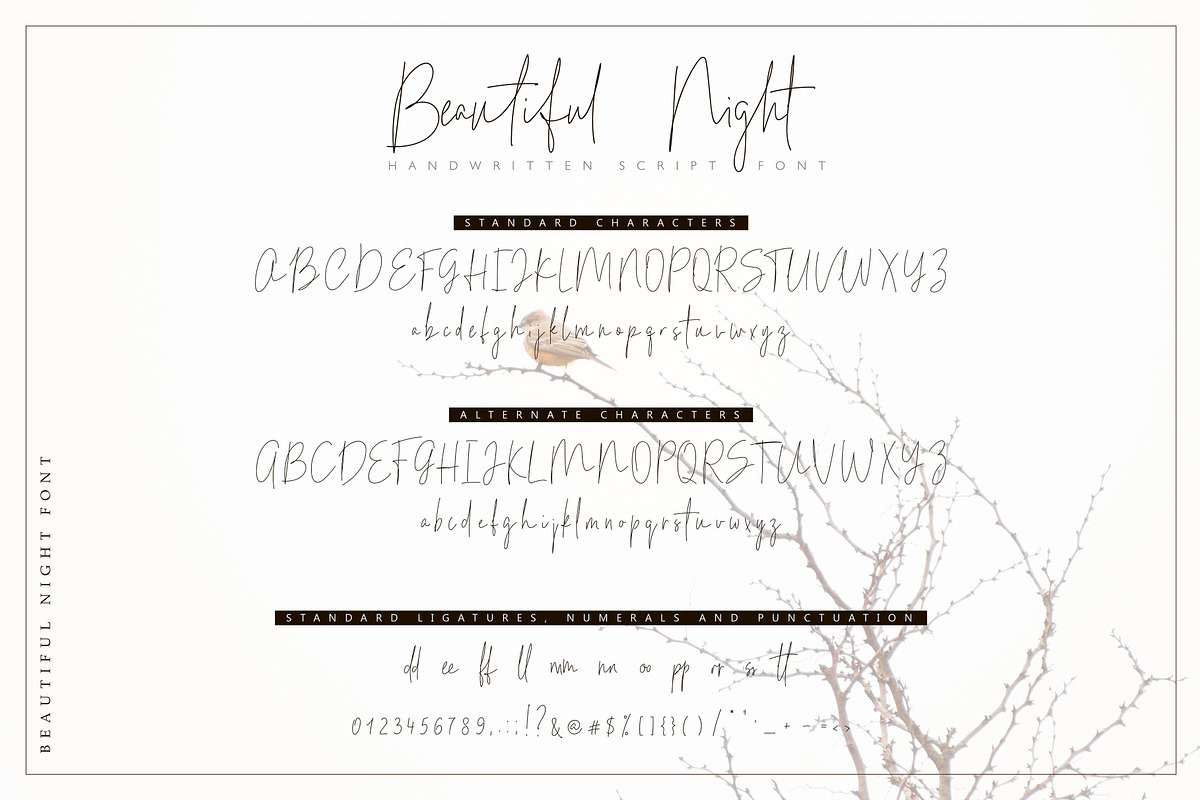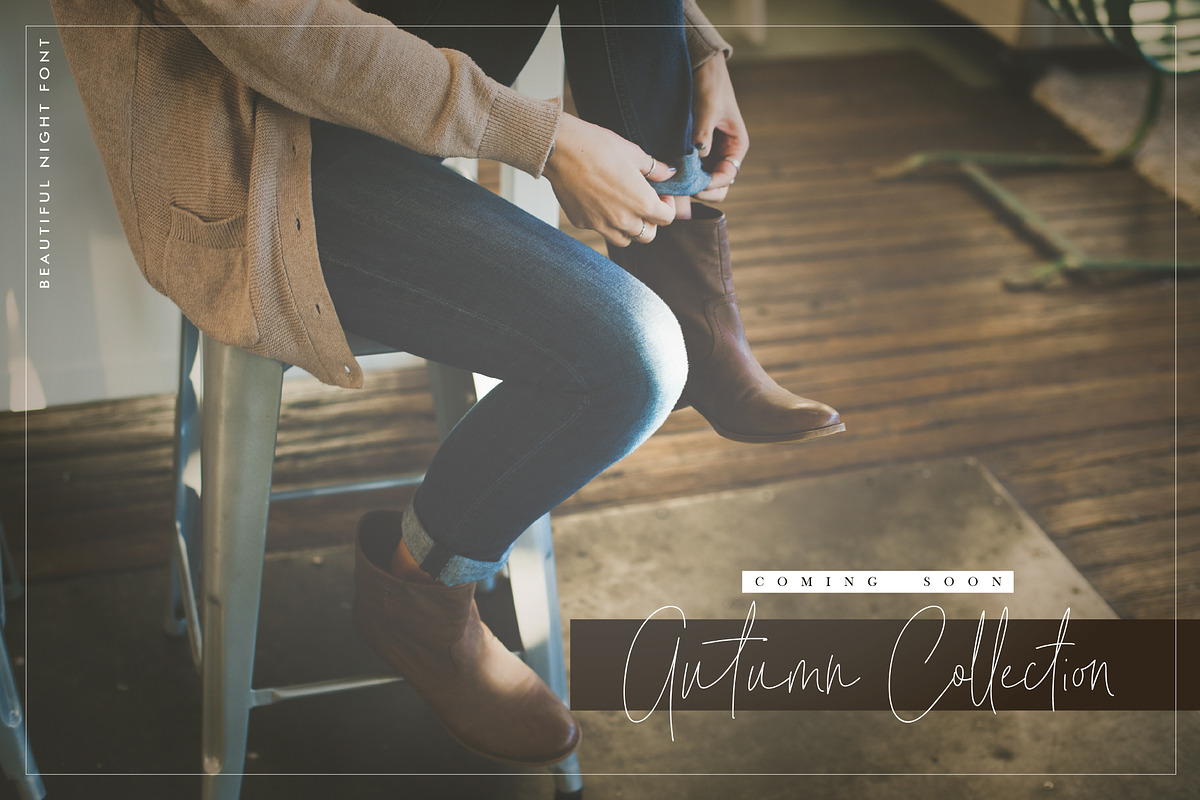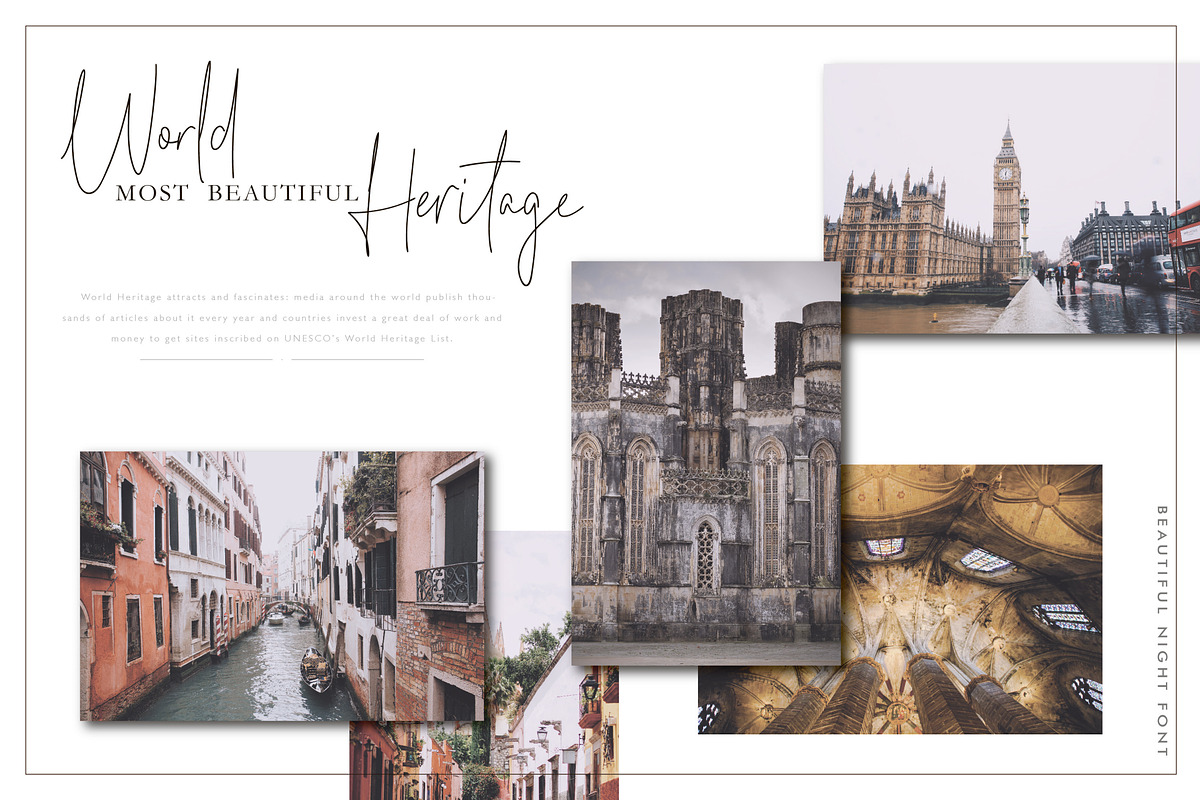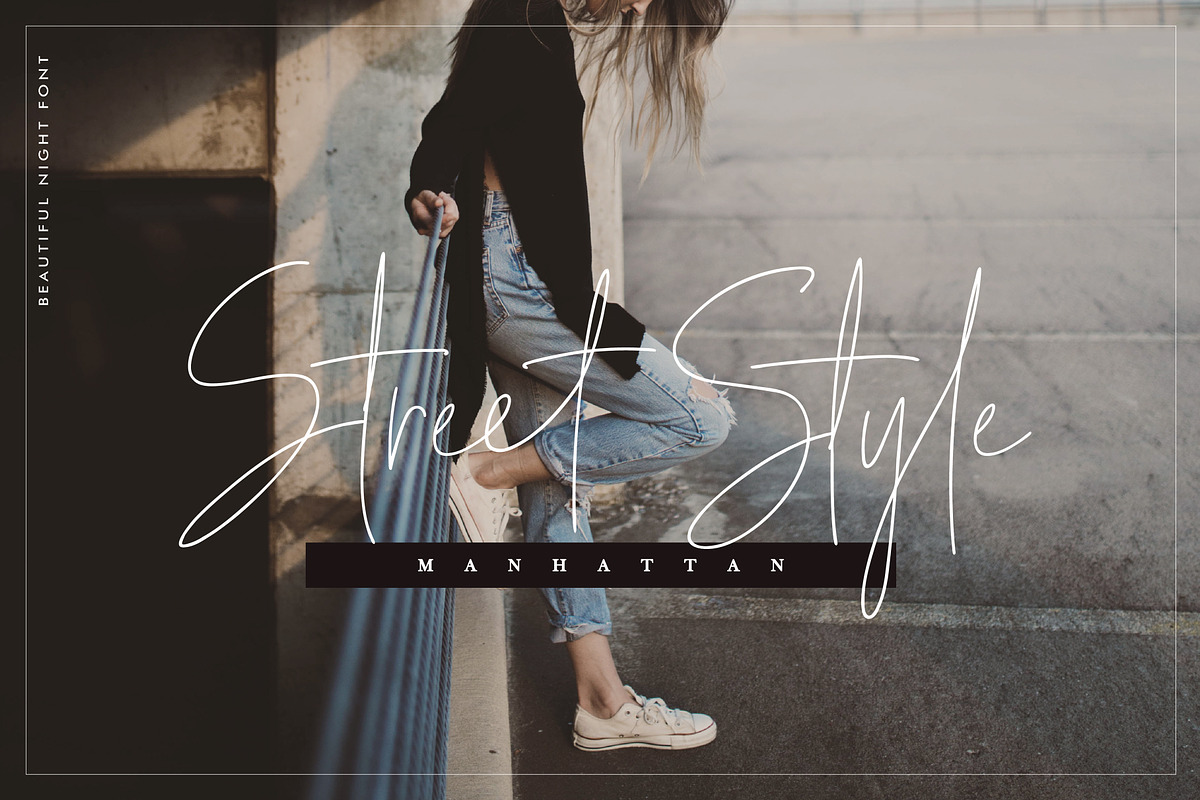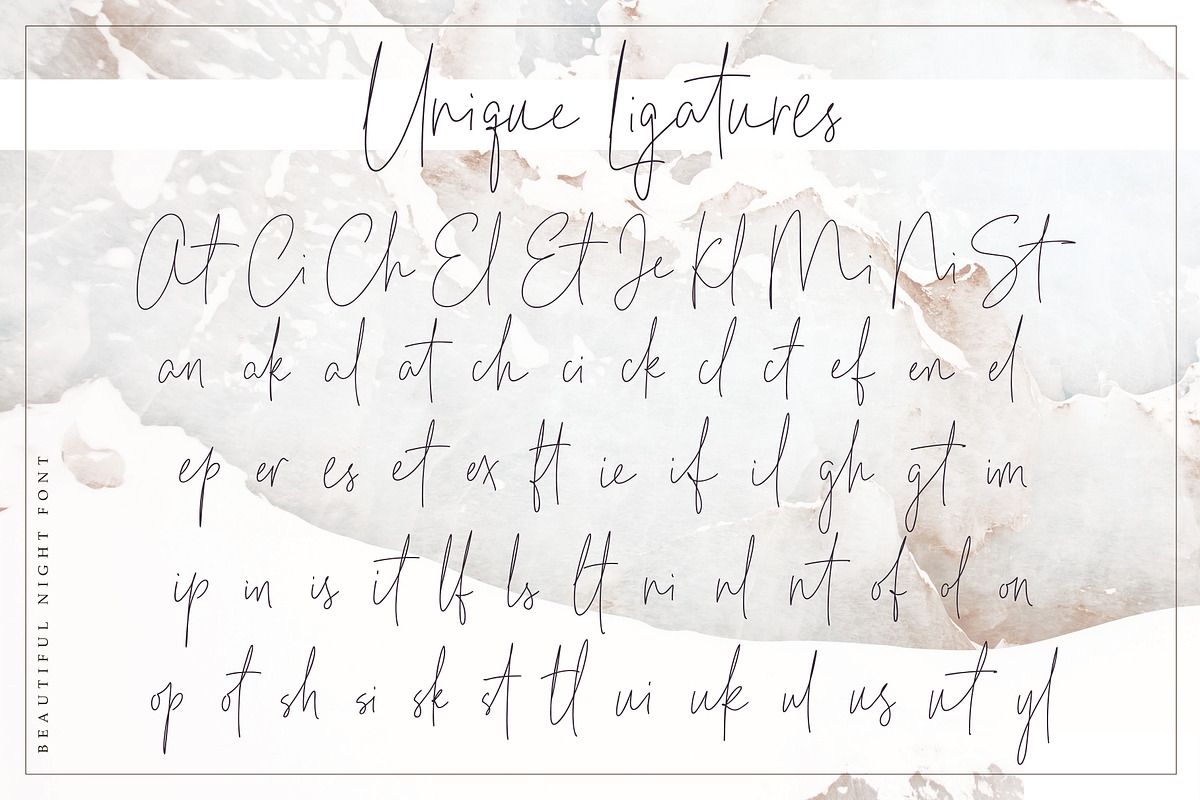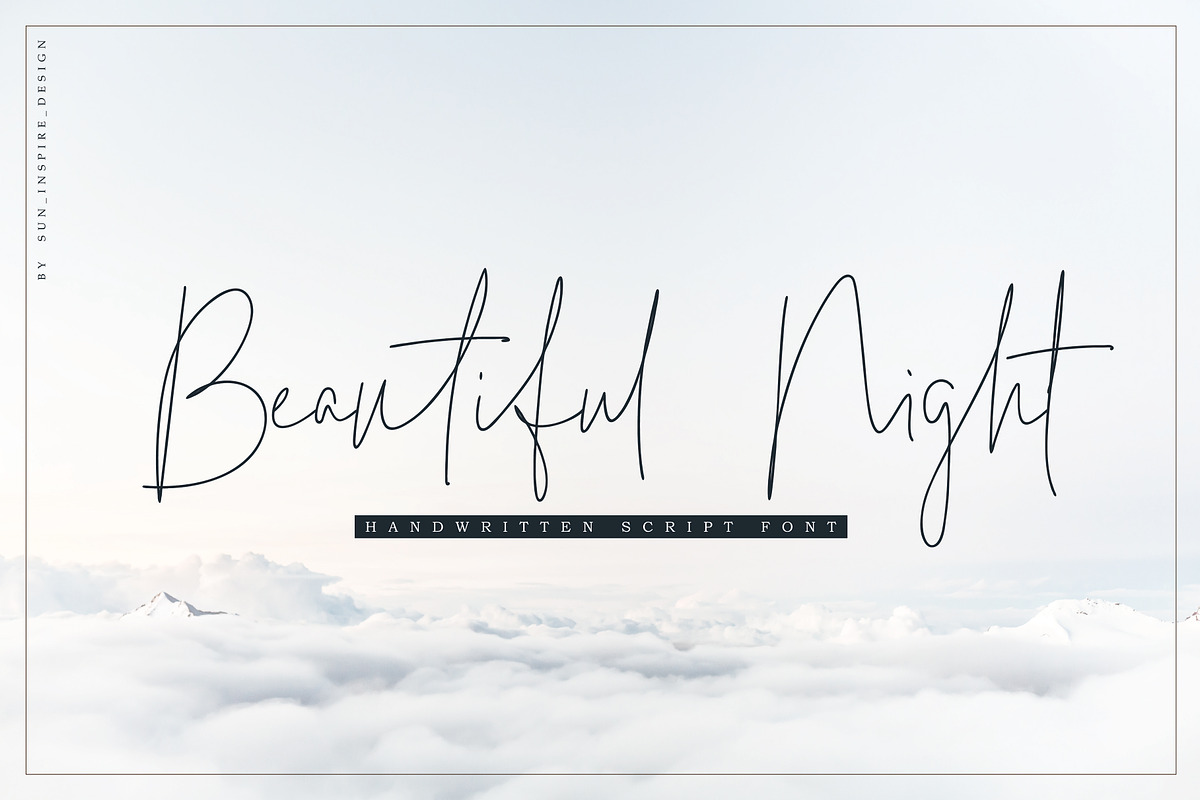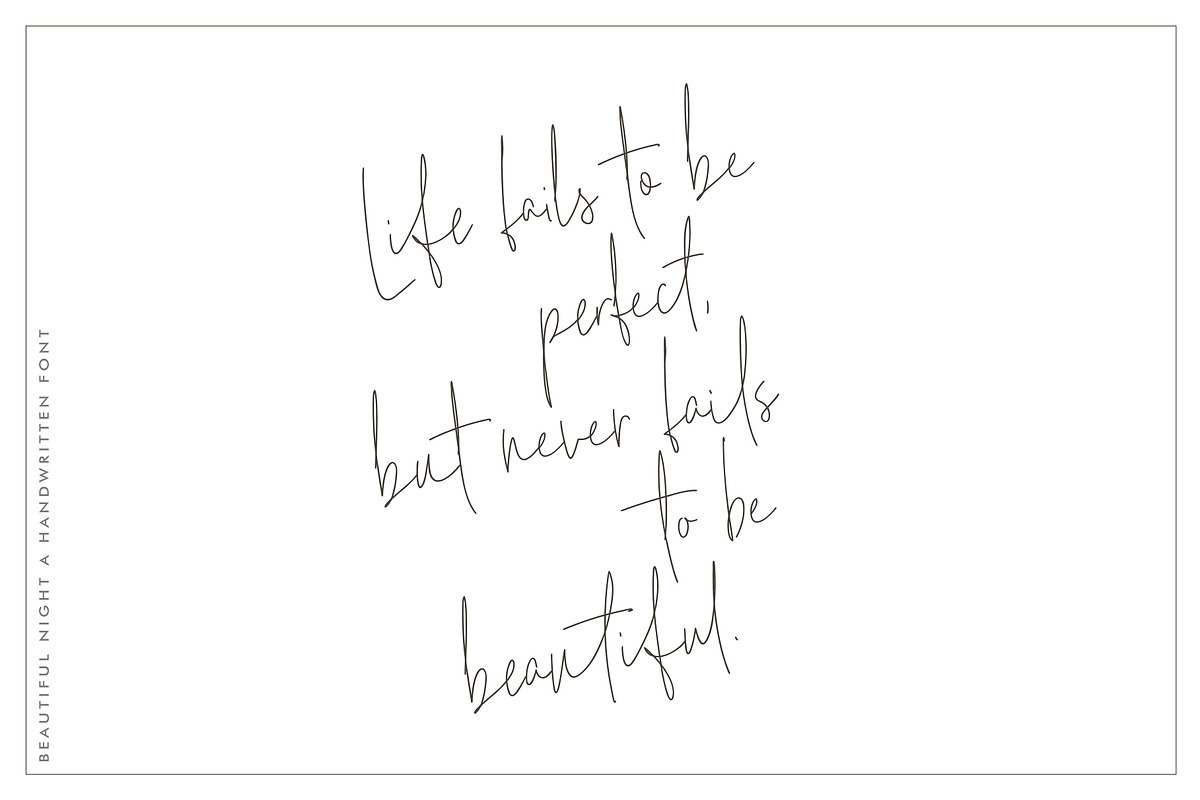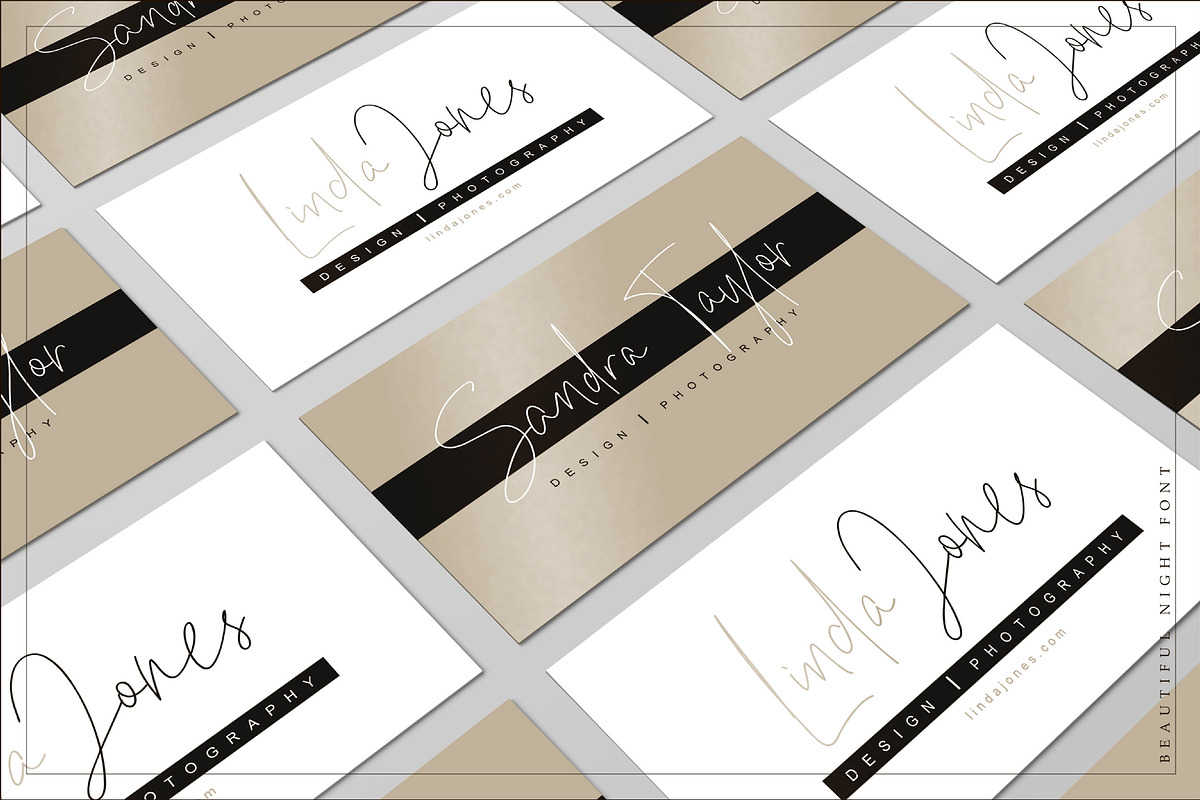
Beautiful Night Script Font
Beautiful Night is handwritten font with smooth lines and casual style. It have natural modern look that will give you text a personal, custom-made feel. This font will look good on various design projects - magazines, blog posts, social media, business cards etc.
a full set of upper & lowercase characters;
a full set of alternate upper & lowercase characters;
numerals and punctuation;
11 standart & 60 unique ligatures.
Beautiful Night Script Font by SiDesign fits naturally into Branding, posters, packaging, typography.